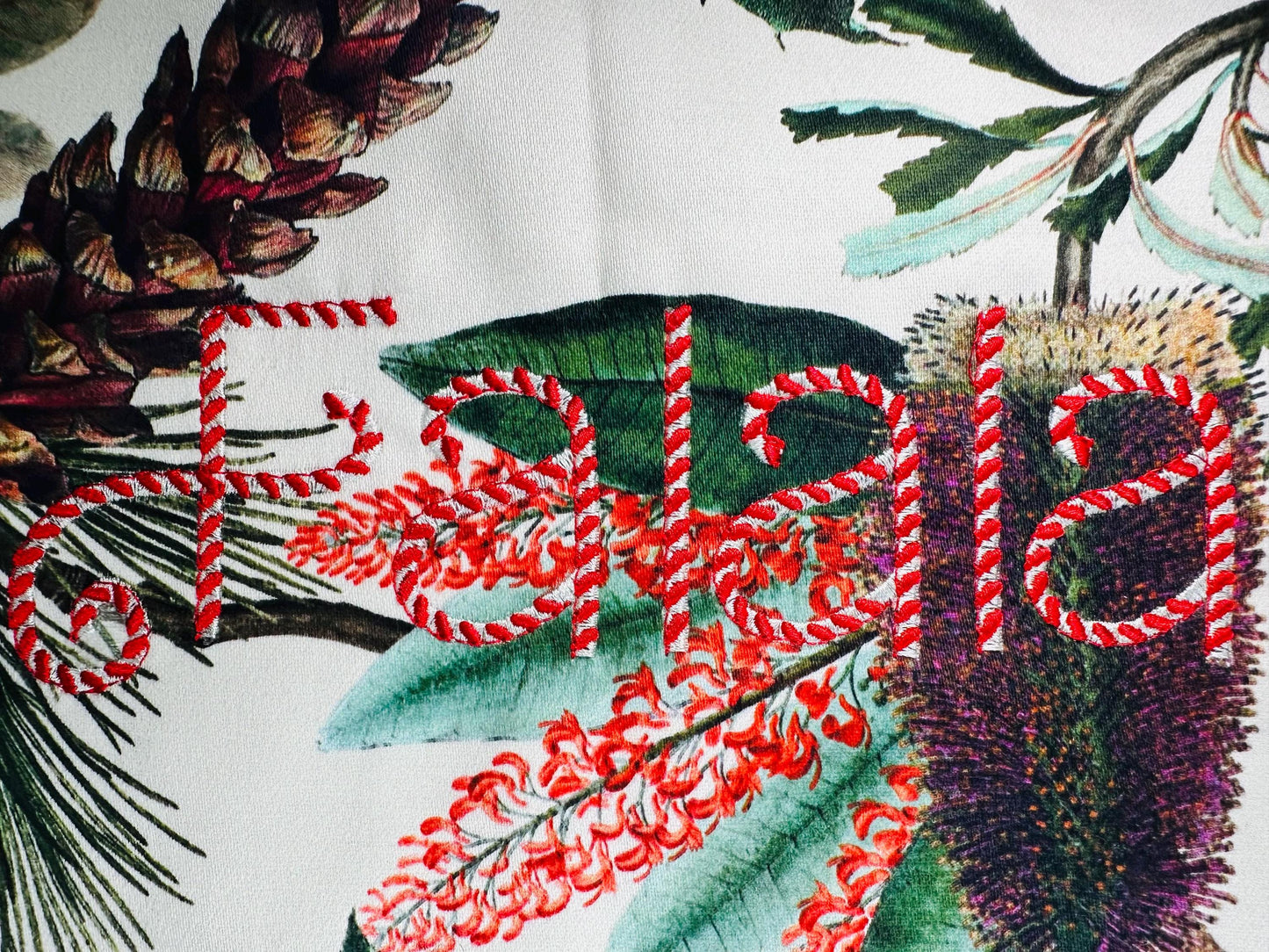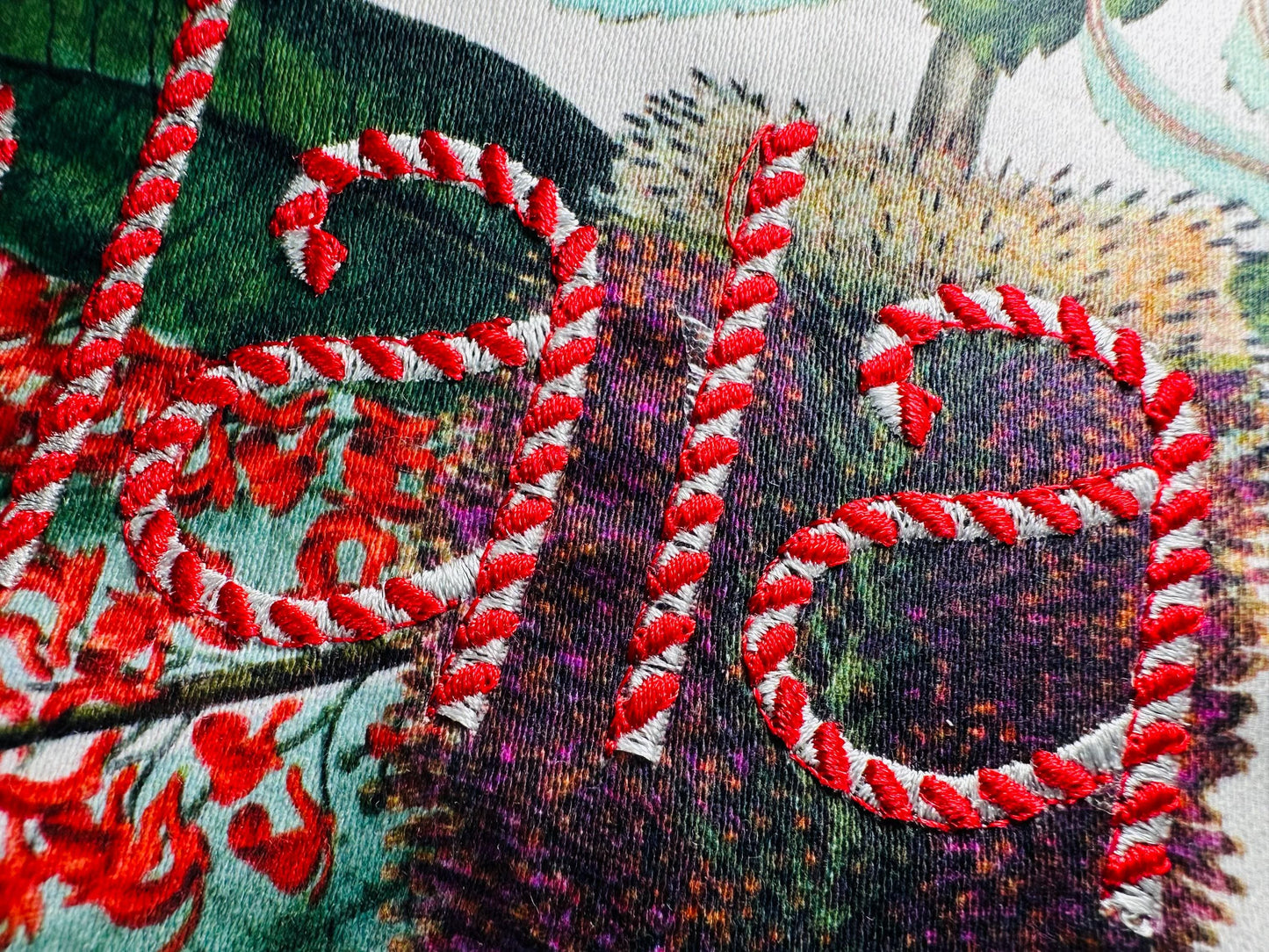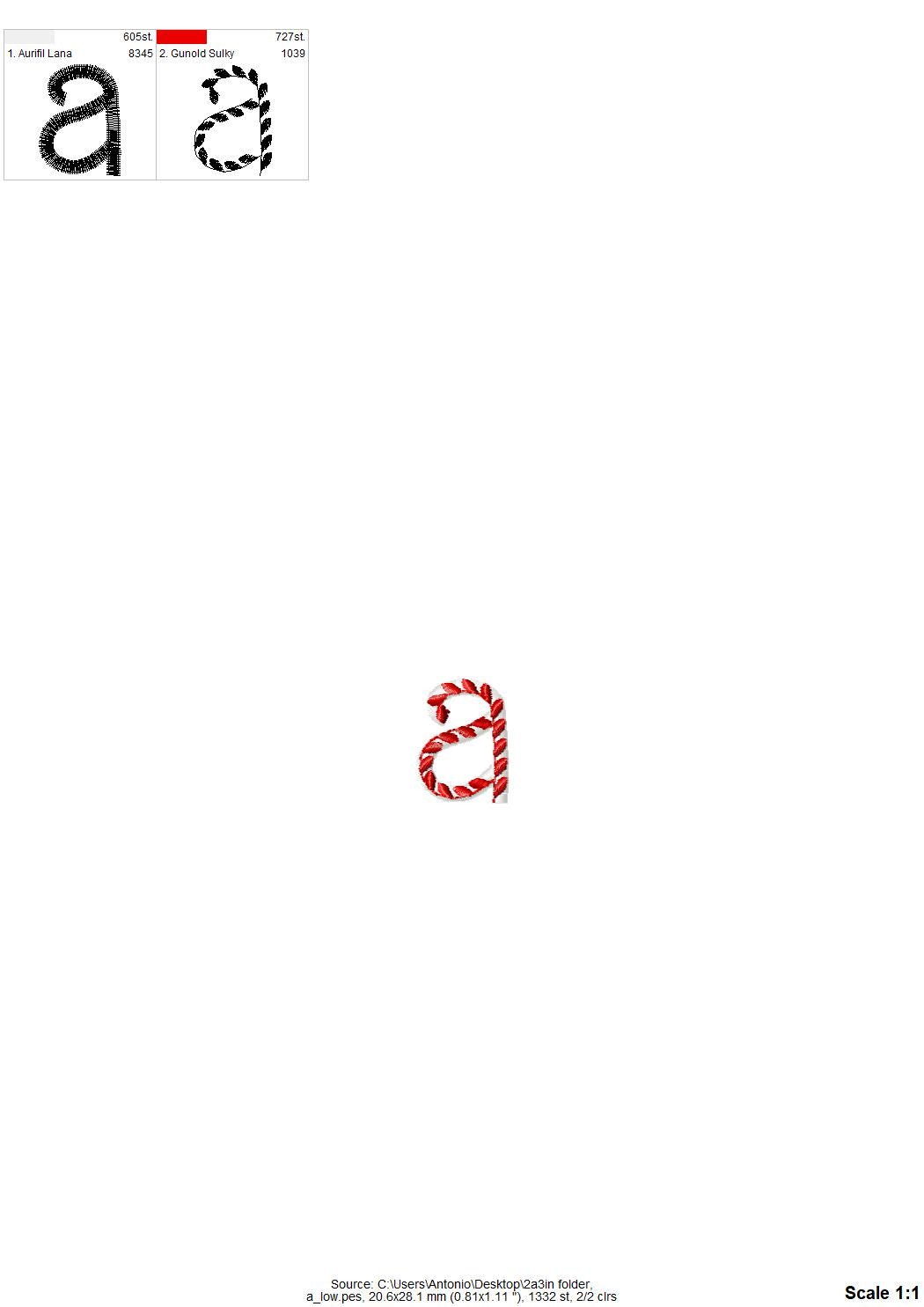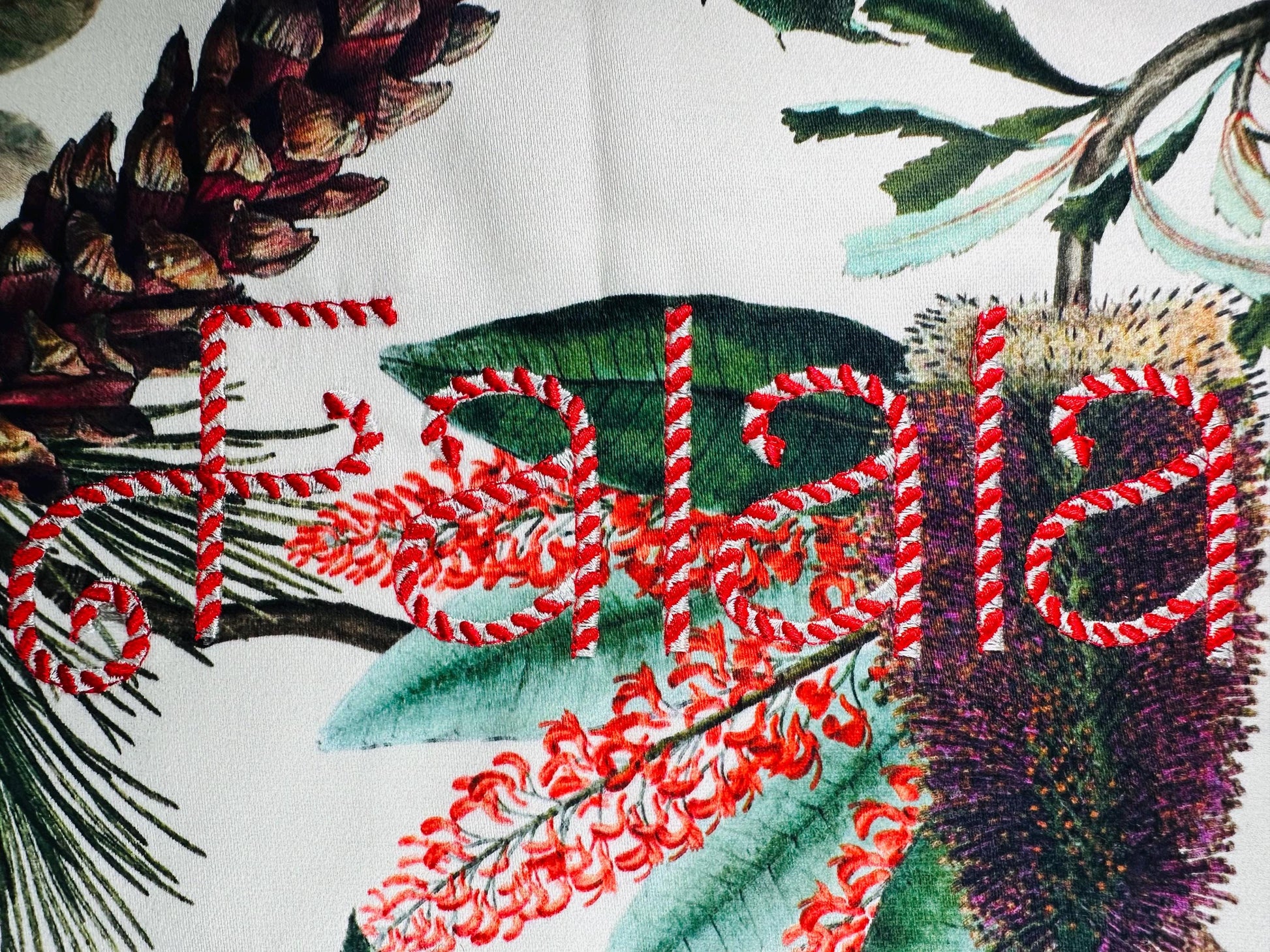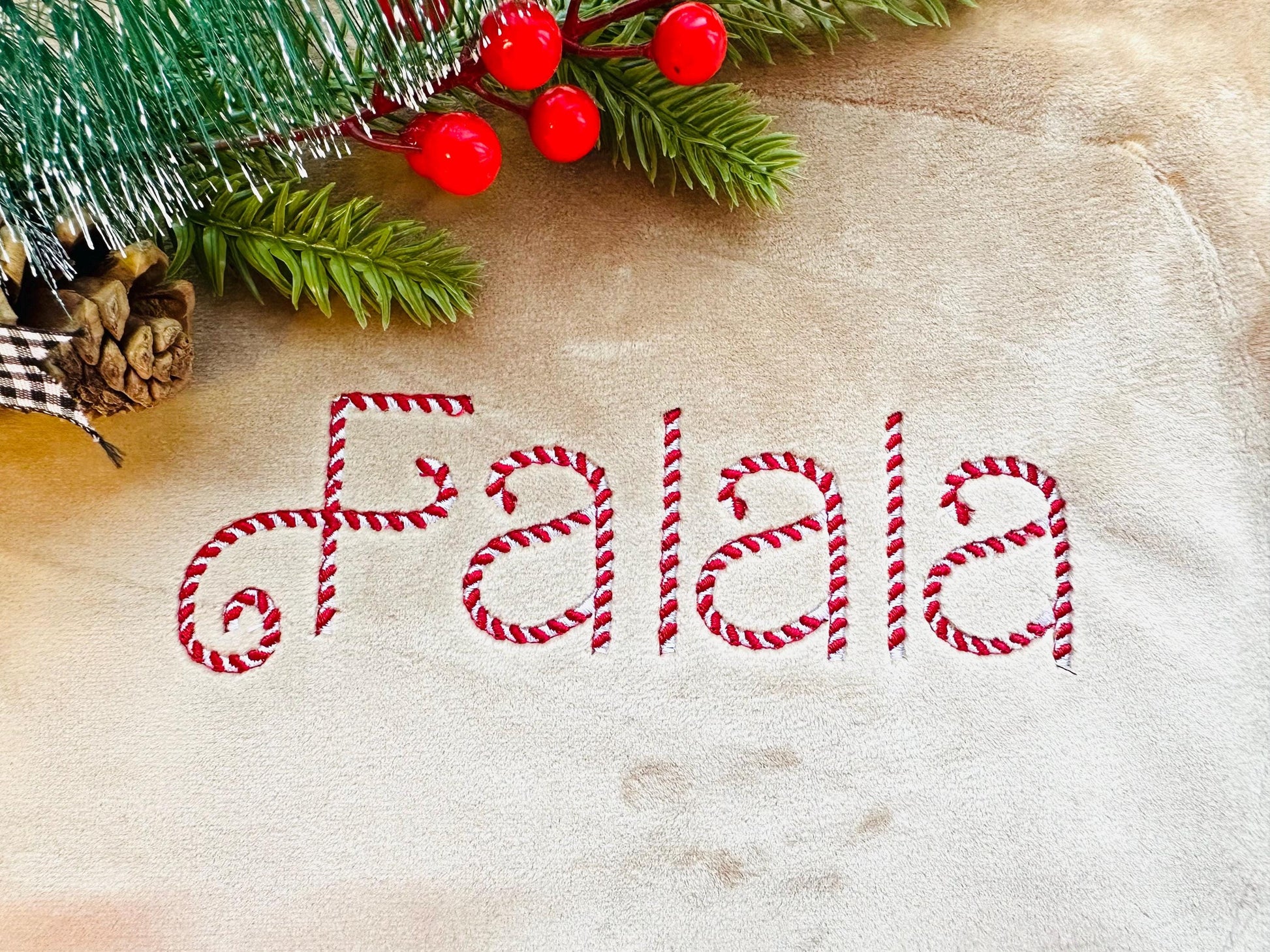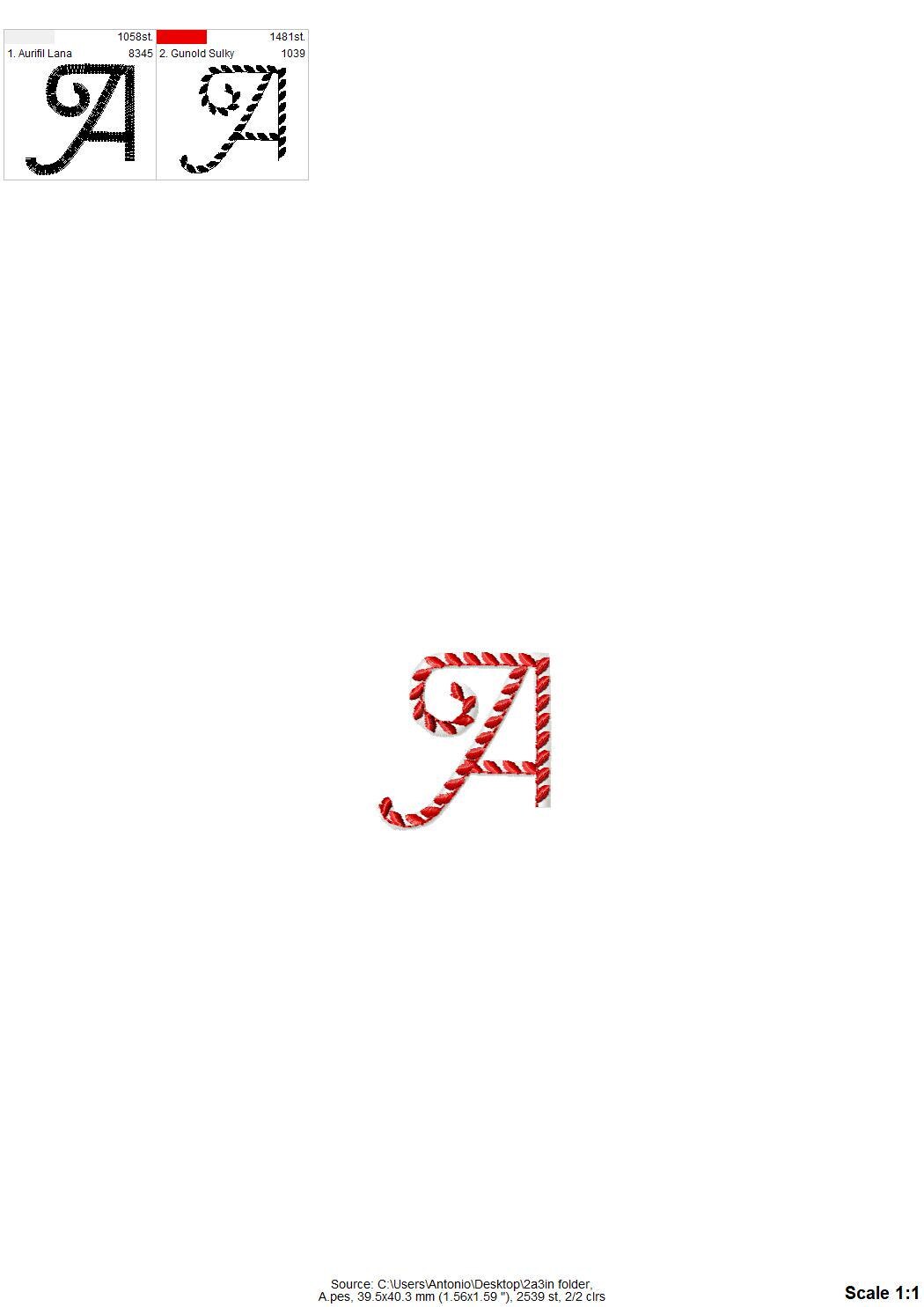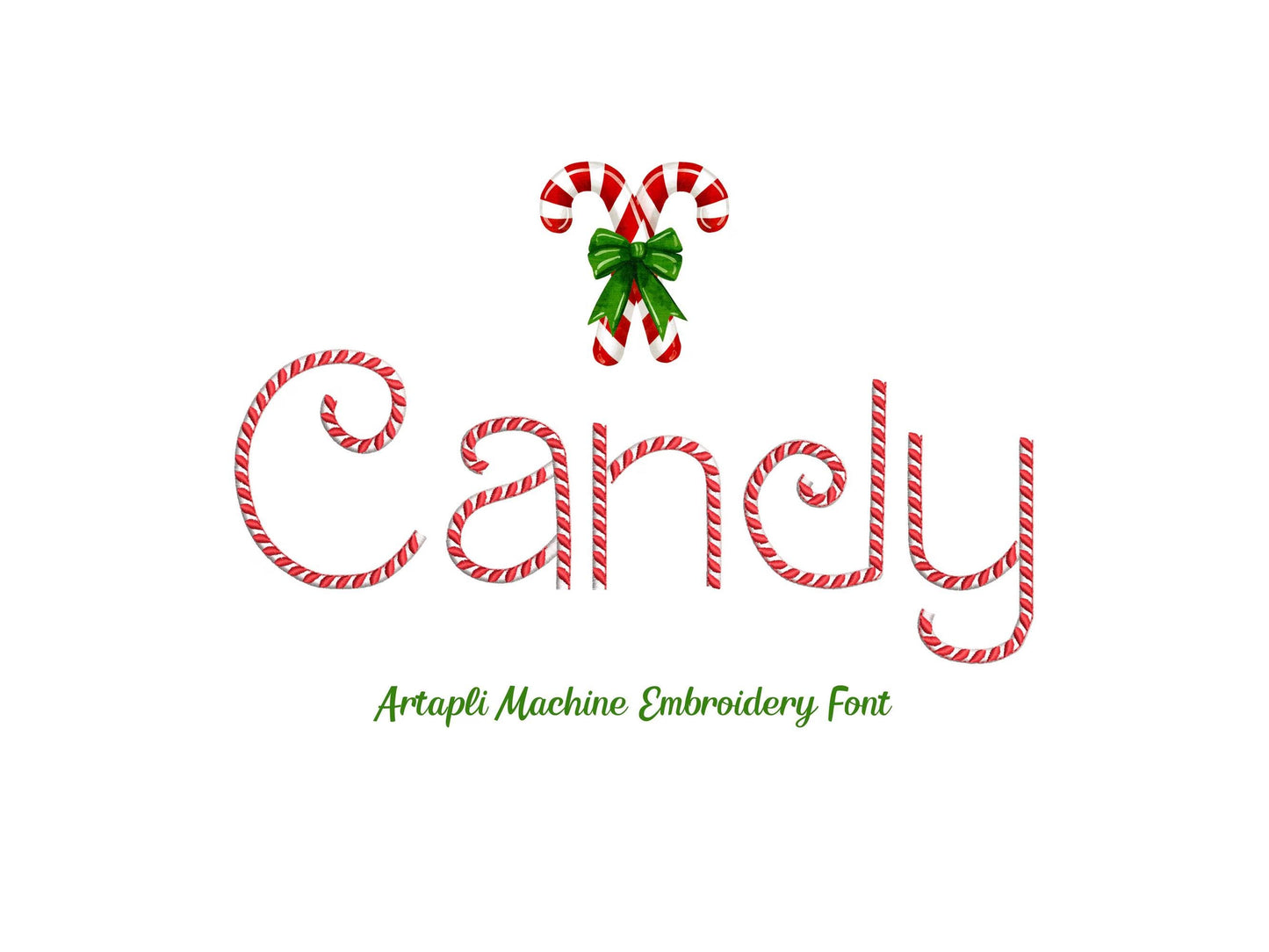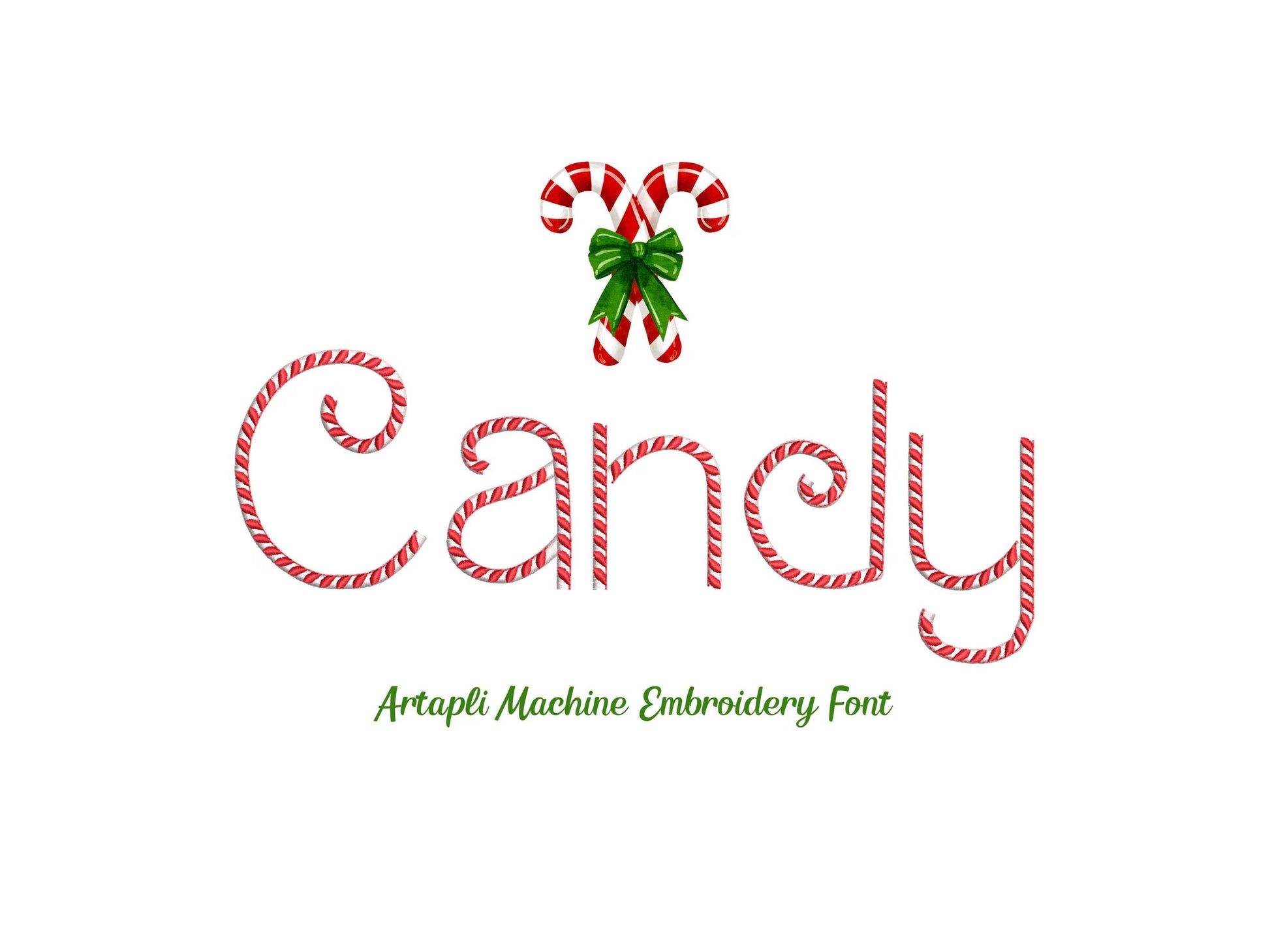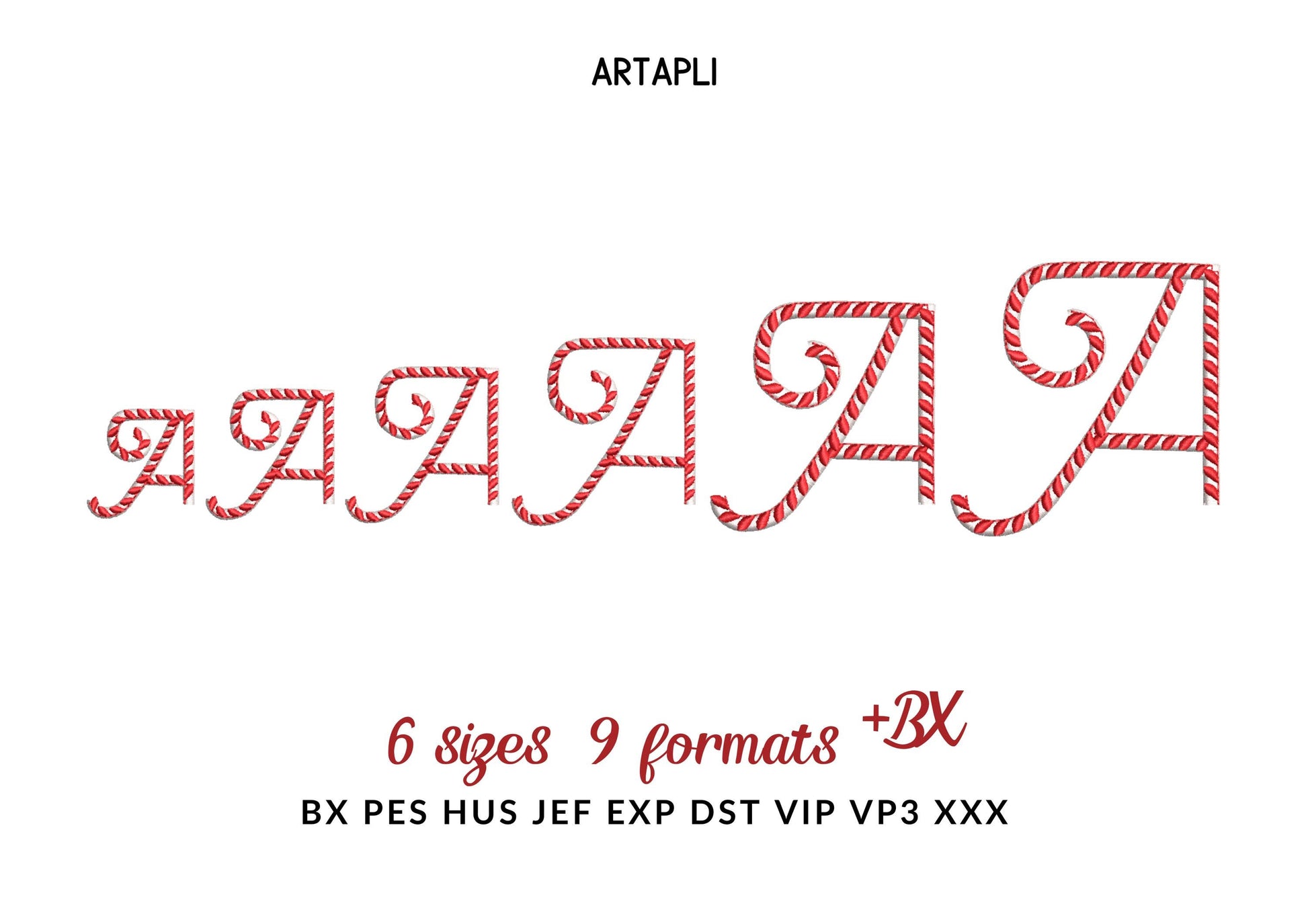
Classic 2-Color Candy Cane Font
A classic two-color candy cane font for Christmas names and words on stockings, sweaters and gifts.
Candy cane stripes in two colors run through each letter. Uppercase and lowercase letters and numbers in six sizes: 1.3, 1.6, 1.9, 2.3, 2.8 and 3.3 inches.
• Two-color candy cane font